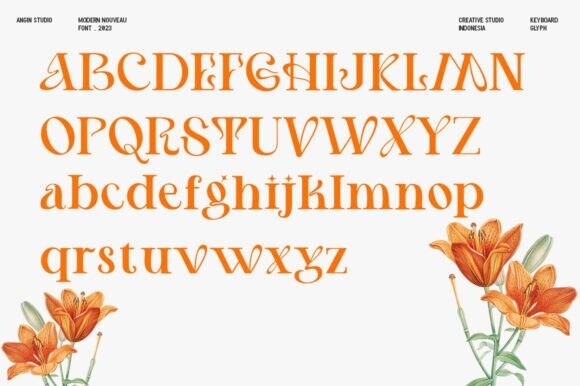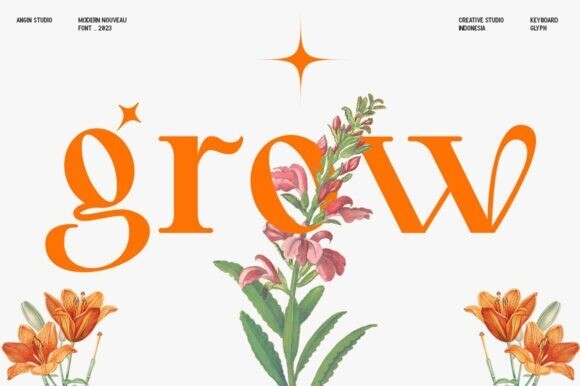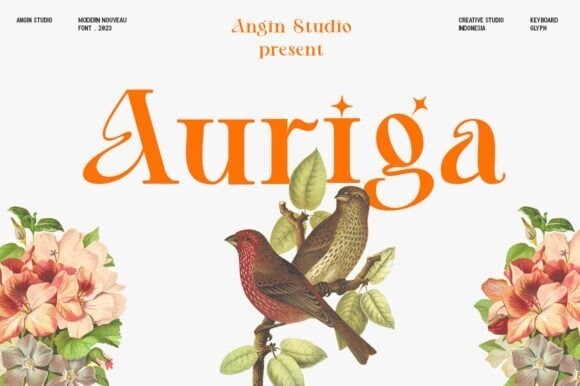
Auriga Serif Font
Designer: Angin Studio
Auriga Serif Font, a captivating font blending contemporary design with the timeless elegance of the Art Nouveau movement. With its graceful curves and ornate details, Auriga pays homage to the romanticism and organic forms.
The charm of Auriga lies in its simplicity and accessibility. Designed as a keyboard glyph font, it allows for easy and convenient usage across various platforms and applications. Its clean and legible letterforms ensure that your words are both visually striking and easily readable.
Auriga has a balanced and harmonious presence, making it suitable for a wide range of creative projects. Whether you’re designing elegant invitations, crafting sophisticated branding, or adding a touch of refined beauty to your personal correspondence, Auriga effortlessly elevates your text with its timeless allure.
While Auriga does not feature ligatures, alternate characters, or varying weights, Its distinctive personality and attention to detail shine through each meticulously crafted glyph. Its simplicity allows it to seamlessly integrate into any project, enhancing the overall aesthetic without overwhelming the viewer.
Step into a world where Art Nouveau meets modern sensibilities with Auriga. Let this enchanting font add a touch of sophistication and grace to your designs.